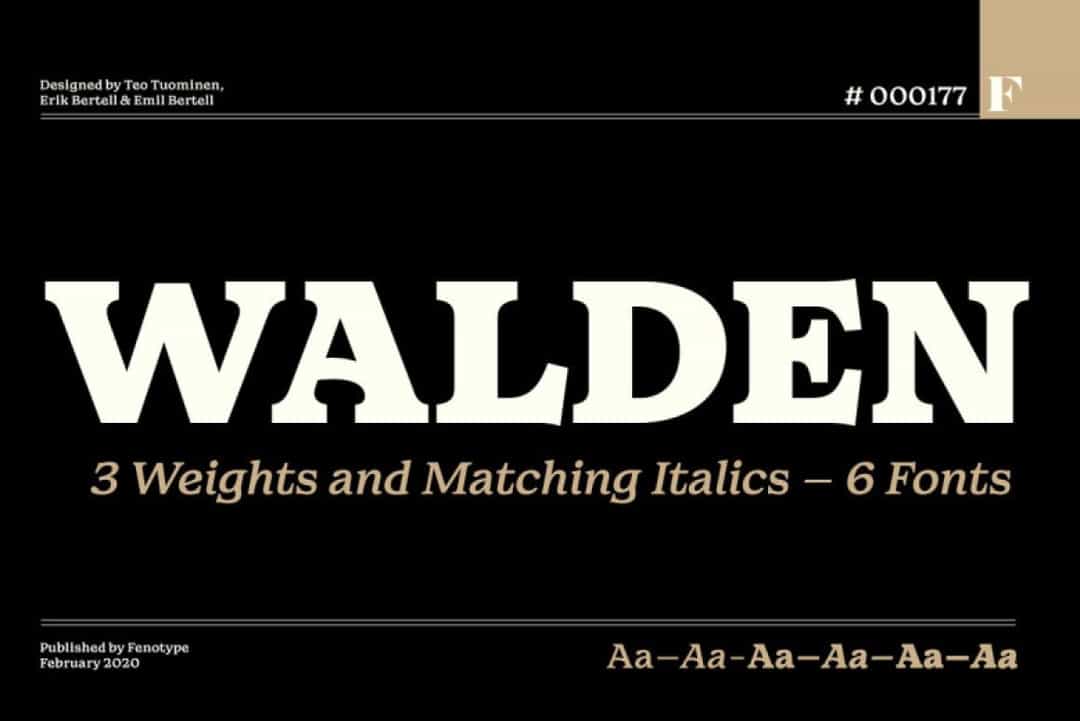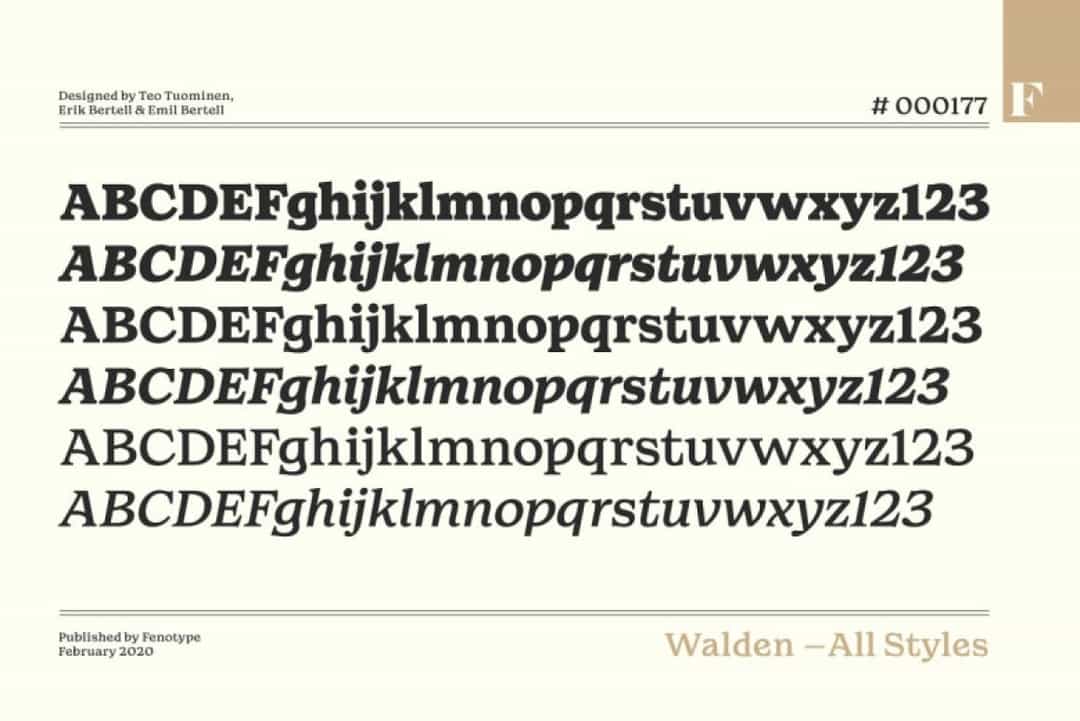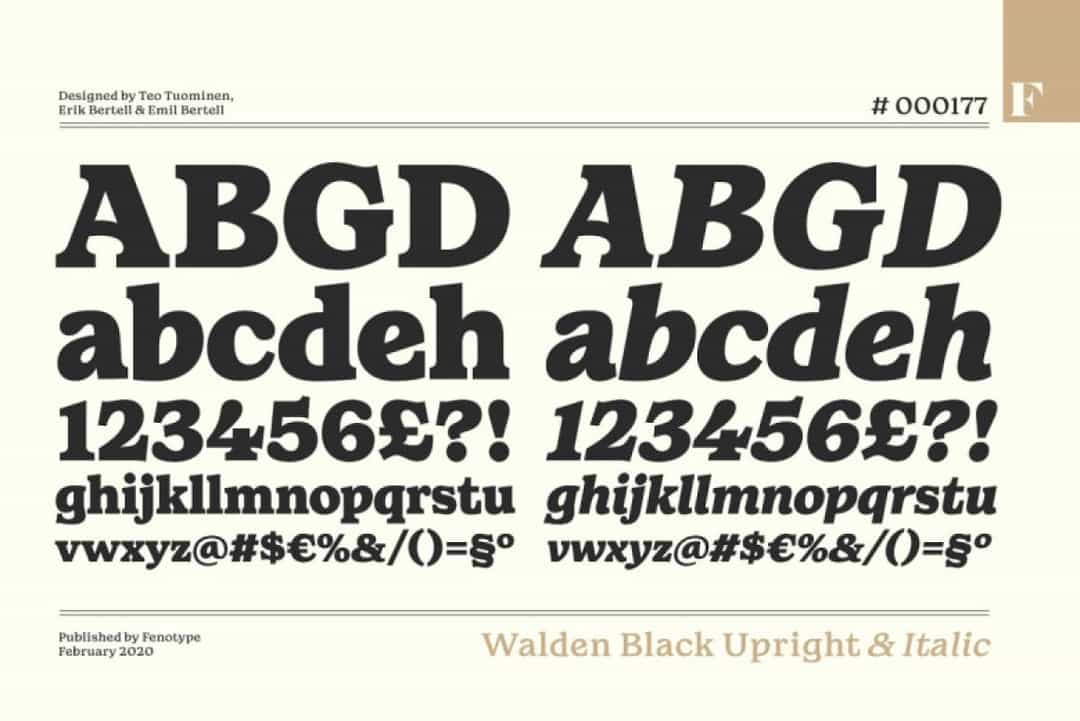
Walden is an impressive serif font with a rustic appeal. This font leaves a warm impression, yet can adapt seamlessly into modern usage with its three weights that come complete with italics – providing just what’s needed.